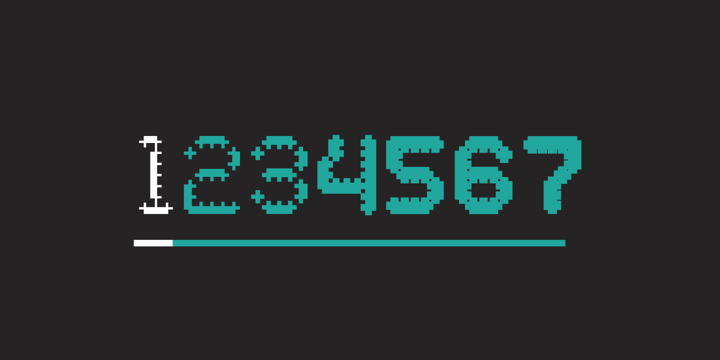
YWFT OneCross
YWFT OneCross by YouWorkForThem
YWFT OneCross Font Family was designed by Michael Cina and published by YouWorkForThem. YWFT OneCross contains 7 styles and family package options. More about this family
About YWFT OneCross Font Family
YWFT OneCross came from the original structure of YWFT OverCross (2002) and was then reworked with an approach to create an interesting blend of both positive and negative space. YWFT OneCross has been used by numerous magazines and websites since 2002. YWFT OneCross was designed in 2002 and converted to opentype in 2010.
Designers: Michael Cina